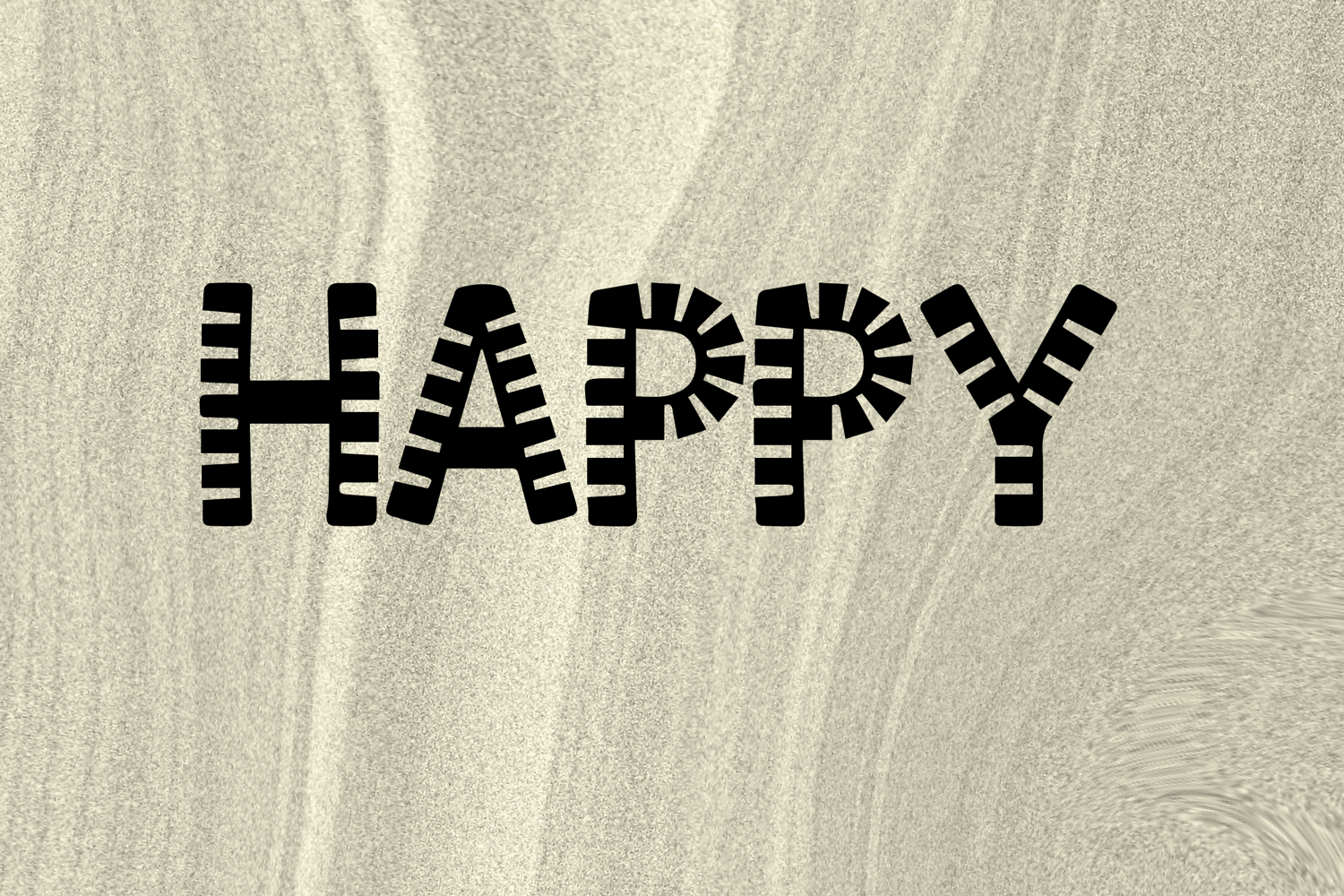
Tribalux
Tribalux is a bold decorative display font with a geometric tribal-inspired style and strong handcrafted character. Its uppercase letterforms feature thick solid shapes, rhythmic line-cut details, and striking symmetrical accents that create a unique, edgy, and eye-catching look. Designed with uppercase letters A–Z and numbers 0–9, Tribalux is perfect for logos, branding, posters, packaging, headlines, and creative projects that need a powerful and distinctive statement.